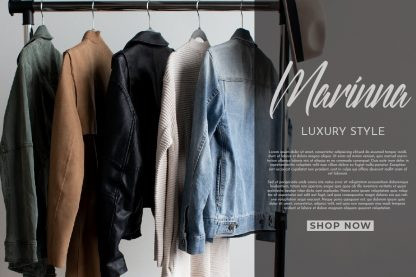
Meatagraph Script Font
Alcatraz radiates authenticity with each letter, making an incredibly modern and unique script. Get inspired by its modern charm!